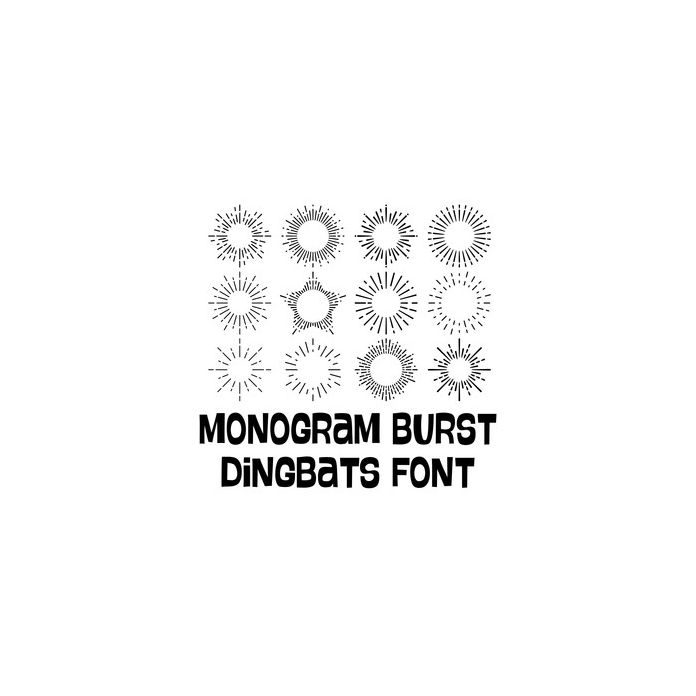
monogram burst dingbats font
This cute dingbat font includes 26 icons that you can type + cut. Make adorable projects quickly and easily with the characters in this fun font. For ideas and inspiration visit Lori's blog.